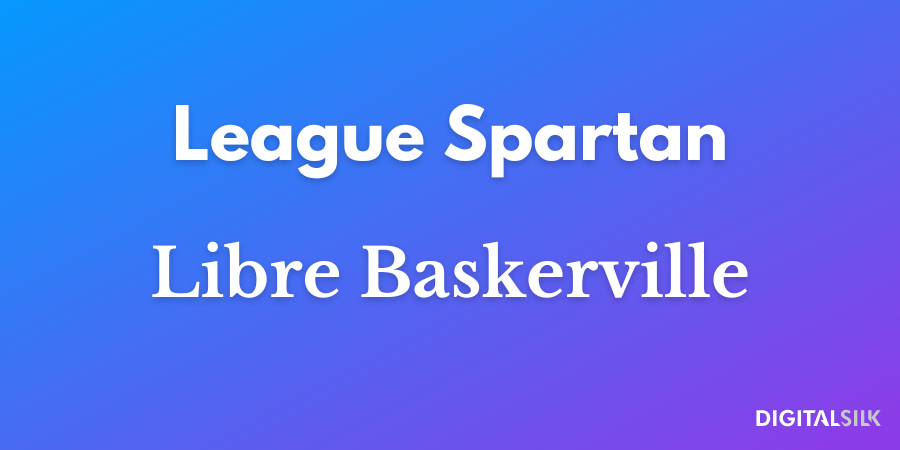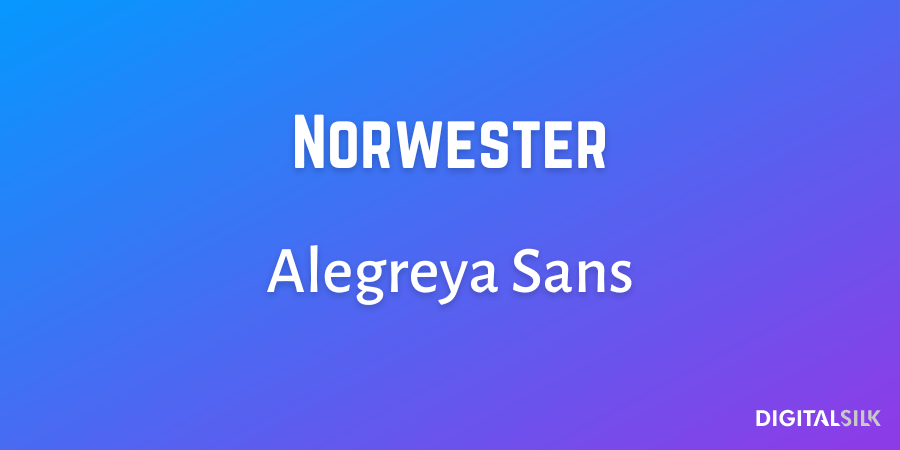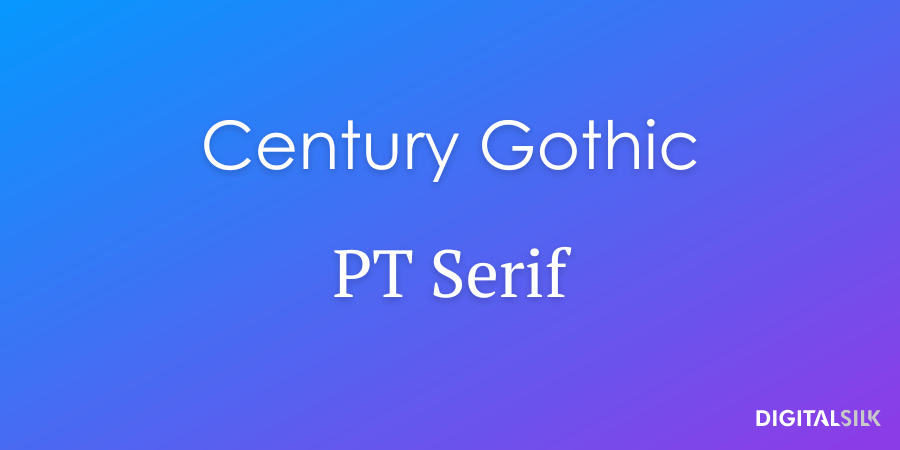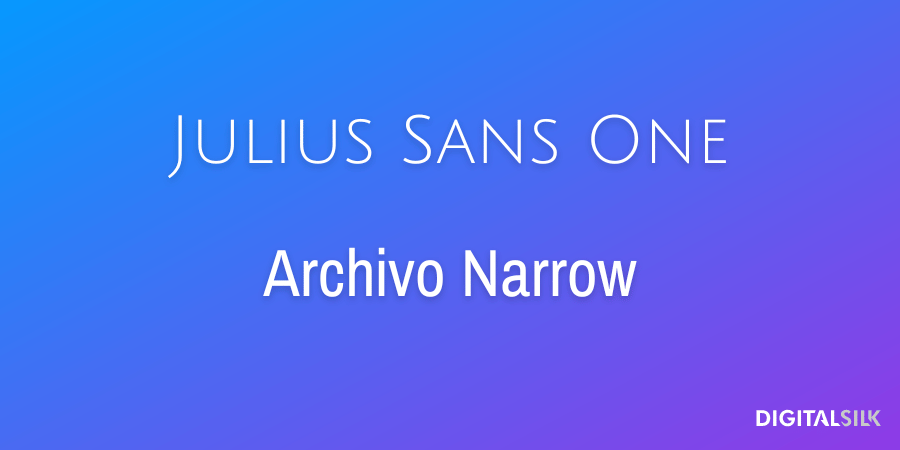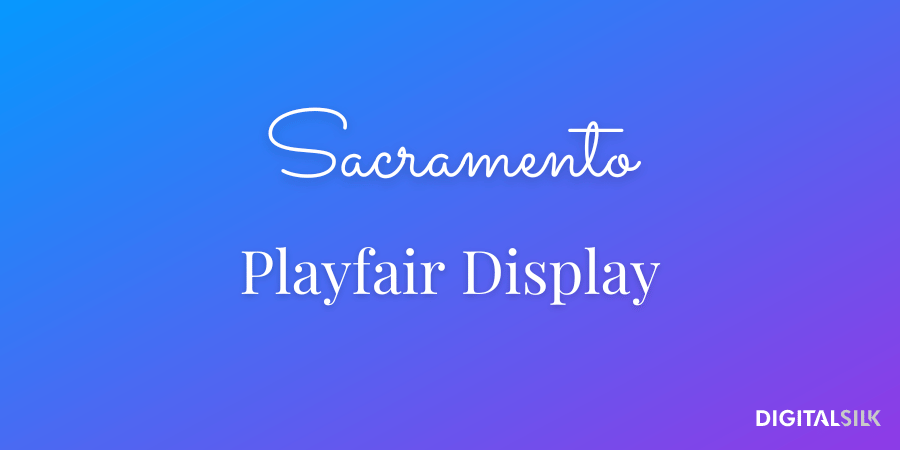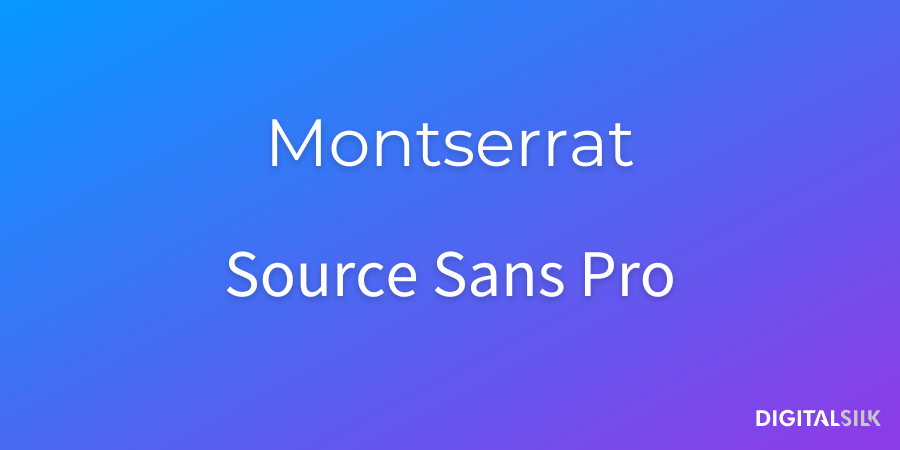
20 Best Font Pairs For Impressive Branding (With Examples)
People take in your logo, colors and typography before they read a single word. Explore 20 of the best font pairs for branding and learn how to choose combinations that elevate your identity.
-
Font pairings influence how easily people scan, read and stay oriented once real content enters the page.
-
Many popular font combinations hold up in mockups but struggle as pages grow and layouts adapt.
-
Knowing where a font pairing works and where it falls apart matters more than the pairing itself.
55% of first impressions for branding are visual.
Most people zero in on your logo, color palette, imagery, graphic elements and typography before even reading your content or learning about your products or services.
Typography often gets less attention than those other elements, even though it sets expectations about tone and scale almost immediately.
That initial signal influences how easily people follow a page once real content comes into view.
Font pairs affects how that experience unfolds.
Some combinations support reading and navigation across devices and content lengths. Others look polished in isolation but start to break down as pages grow and layouts adapt.
This guide focuses on the best font pairs that hold up in real branding systems. Each example explains where a pairing works, where it tends to fall apart and what to use instead when it does.
20 Best Font Pairs & Combinations
Users typically only read 28% of written content on websites, which means typography carries more weight than most brands expect.
Headlines, body copy and spacing all need to work together to help people grasp information quickly without slowing them down.
Font pairings influence how easily that happens.
Some combinations support scanning and longer reading sessions, while others create visual drag once real content and layouts come into play.
The 20 font pairings below were selected for how they perform in live branding systems, balancing readability, hierarchy and visual tone across different use cases.
| FONT PAIR | BEST USED FOR | WHERE IT STRUGGLES | OVERALL TONE |
| Montserrat + Roboto Slab | Content-heavy sites, SaaS, B2B platforms | Brands relying on strong personality | Structured, neutral |
| League Spartan + Libre Baskerville | Marketing sites with clear sectioning | Mobile layouts with tight vertical space | Direct, editorial |
| Norwester + Alegreya Sans | Campaign pages, creative brands | Long-form pages | Bold, stylized |
| Century Gothic + PT Serif | Professional services, established brands | Small text sizes on low-res screens | Clean, balanced |
| Julius Sans One + Archivo Narrow | Minimalist layouts, visual brands | Long reading sessions | Light, modern |
| Sacramento + Playfair Display | Lifestyle, hospitality, food | Content-dense or multilingual sites | Decorative, refined |
| Montserrat + Source Sans Pro | Scalable brand systems, SaaS | Brands seeking distinct typography | Clean, predictable |
| Yellowtail + Open Sans | Short promotional pages | Formal or enterprise environments | Playful, casual |
| Cinzel + Quattrocento | Luxury, heritage brands | Fast-paced interfaces | Classical, formal |
| Pacifico + Quicksand | Travel, food, community brands | Serious or regulated industries | Relaxed, friendly |
| Helvetica Now + Garamond | Editorial platforms, publishing | Tight, space-sensitive interfaces | Authoritative, traditional |
| Rye + Lora | Story-driven or niche brands | Corporate or conservative sectors | Vintage-inspired |
| Parisienne + Lora | Fashion, beauty, premium lifestyle | Navigation-heavy sites | Elegant, expressive |
| Open Sans + Open Sans Condensed | Large content ecosystems | Brands needing visual distinction | Functional, restrained |
| Fira Sans + Montserrat | Product-led companies, SaaS | Emotion-led brand narratives | Modern, practical |
| Sifonn + Bebas Neue | Hero-driven landing pages | Long-form content | Impactful, assertive |
| Gotham + Open Sans | Media, consumer brands | Brands seeking unique fonts | Familiar, approachable |
| Poppins + Inter | Tech brands with a human tone | Formal or traditional sectors | Friendly, contemporary |
| Red Hat Display + Avenir | Technology and infrastructure brands | Narrative-heavy marketing | Precise, modern |
| Satisfy + Cerebri Sans | Campaigns, creative branding moments | Persistent navigation or long pages | Expressive, contrasting |
1. Montserrat Bold And Roboto Slab
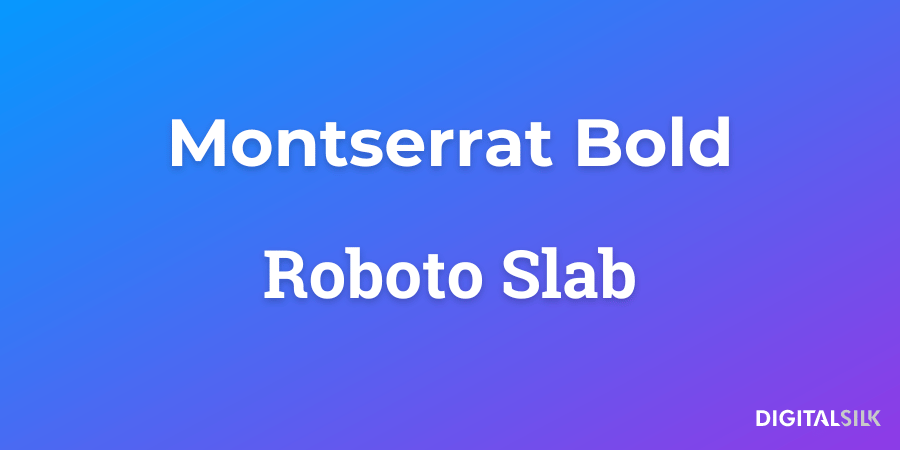
Sans Serif fonts offer optimal readability for both large and fine print, with clean and modern edges and elegant simplicity.
Montserrat Bold handles headlines well when hierarchy needs to be obvious and predictable, while Roboto Slab brings contrast without visual noise, which helps longer pages stay readable.
When this works
This pairing fits B2B sites, SaaS platforms and editorial layouts where scanning matters more expressive or decorative type.